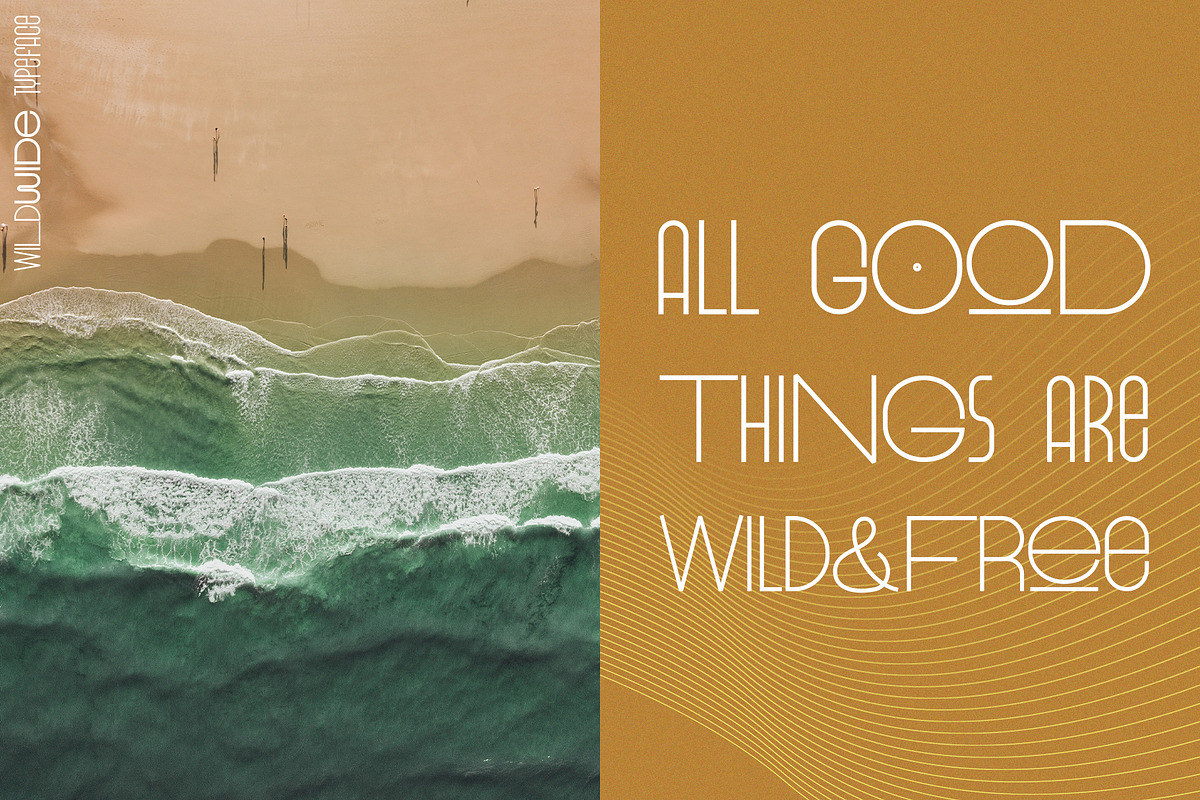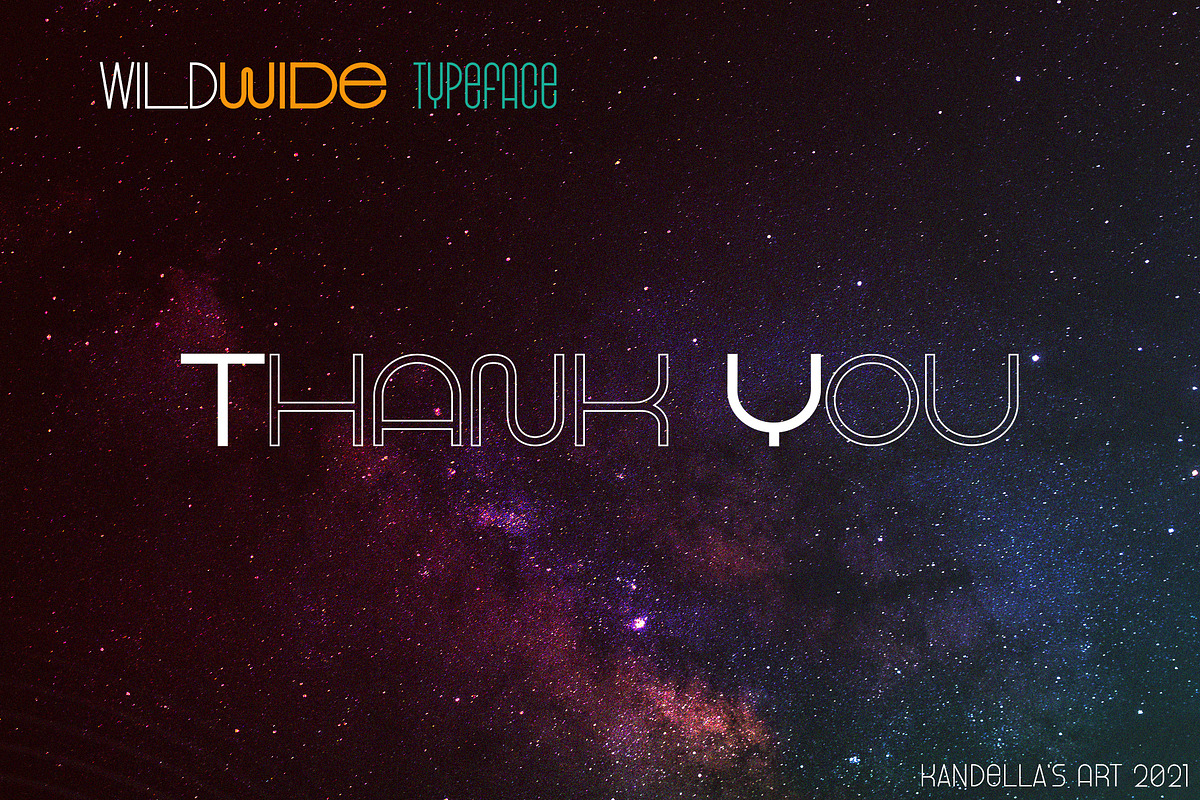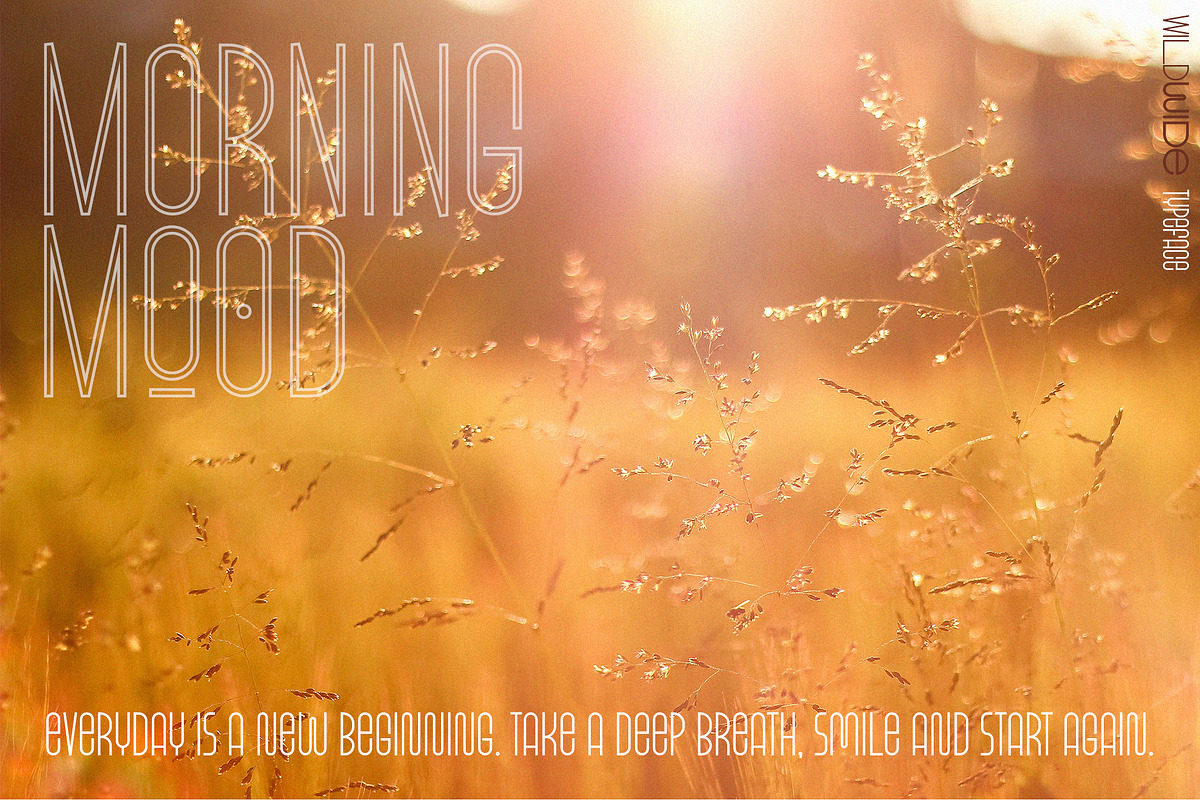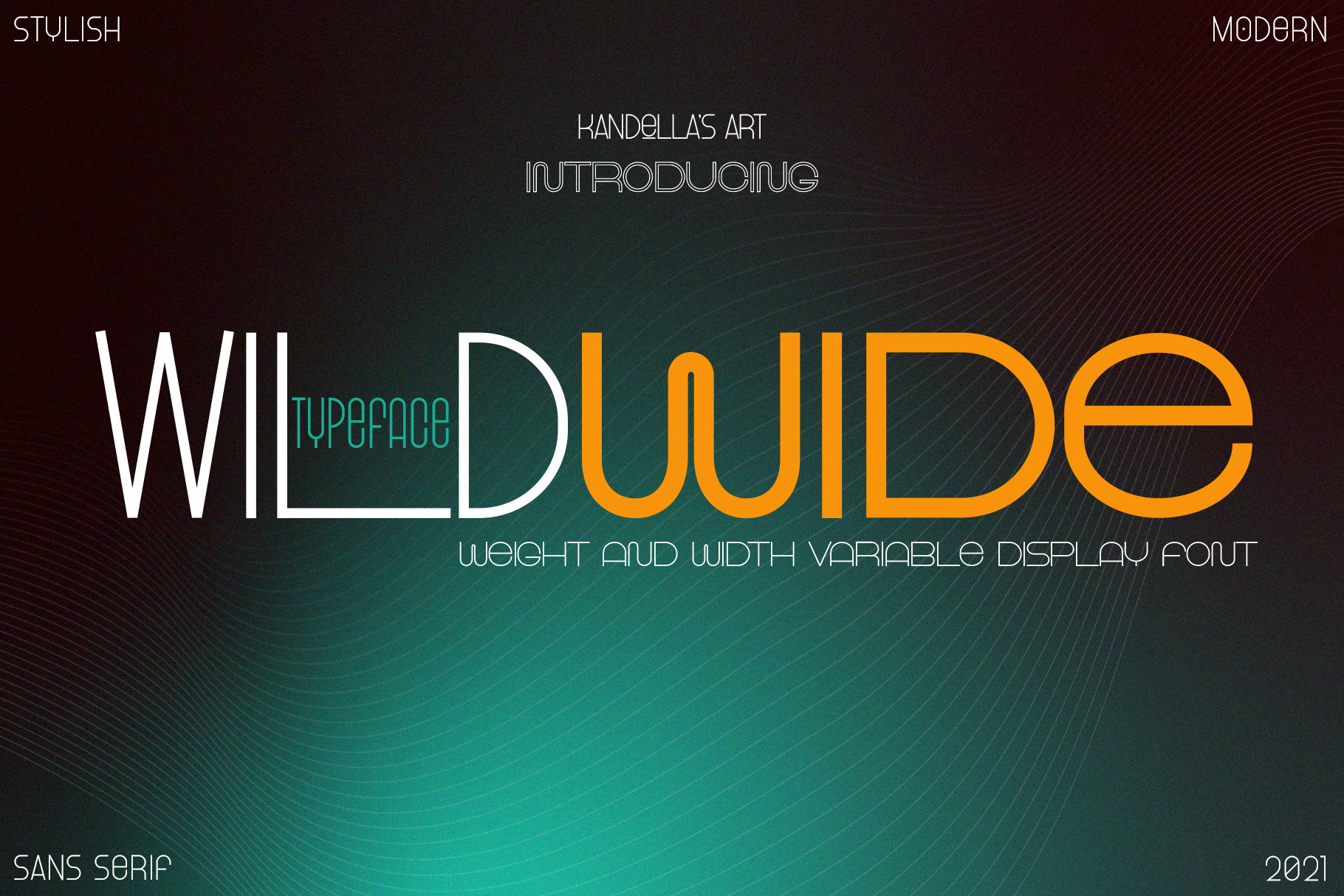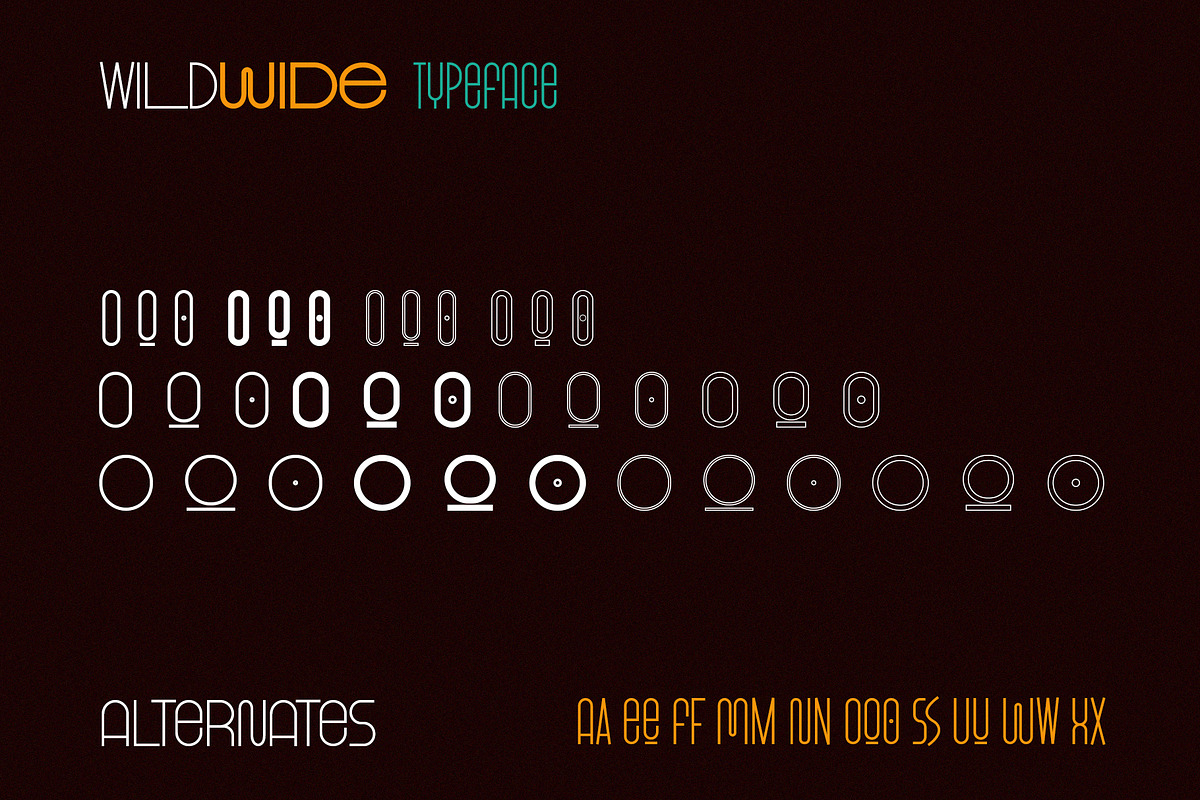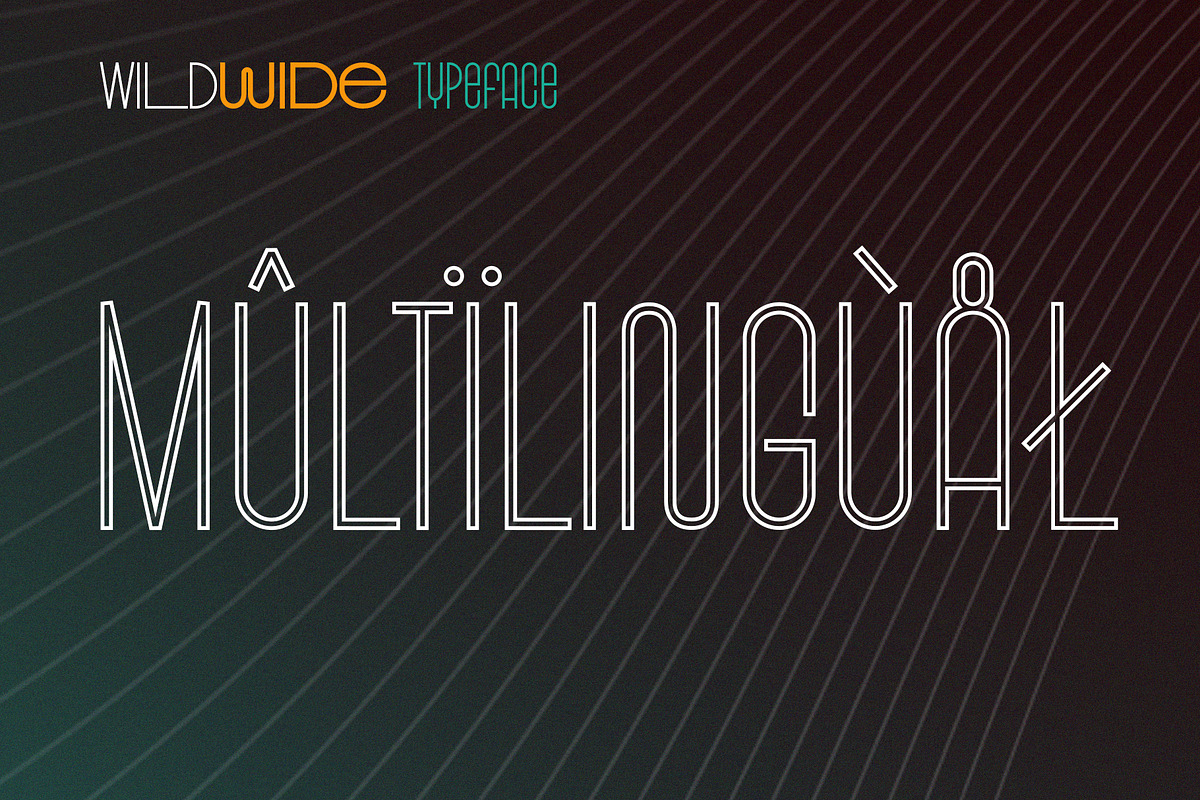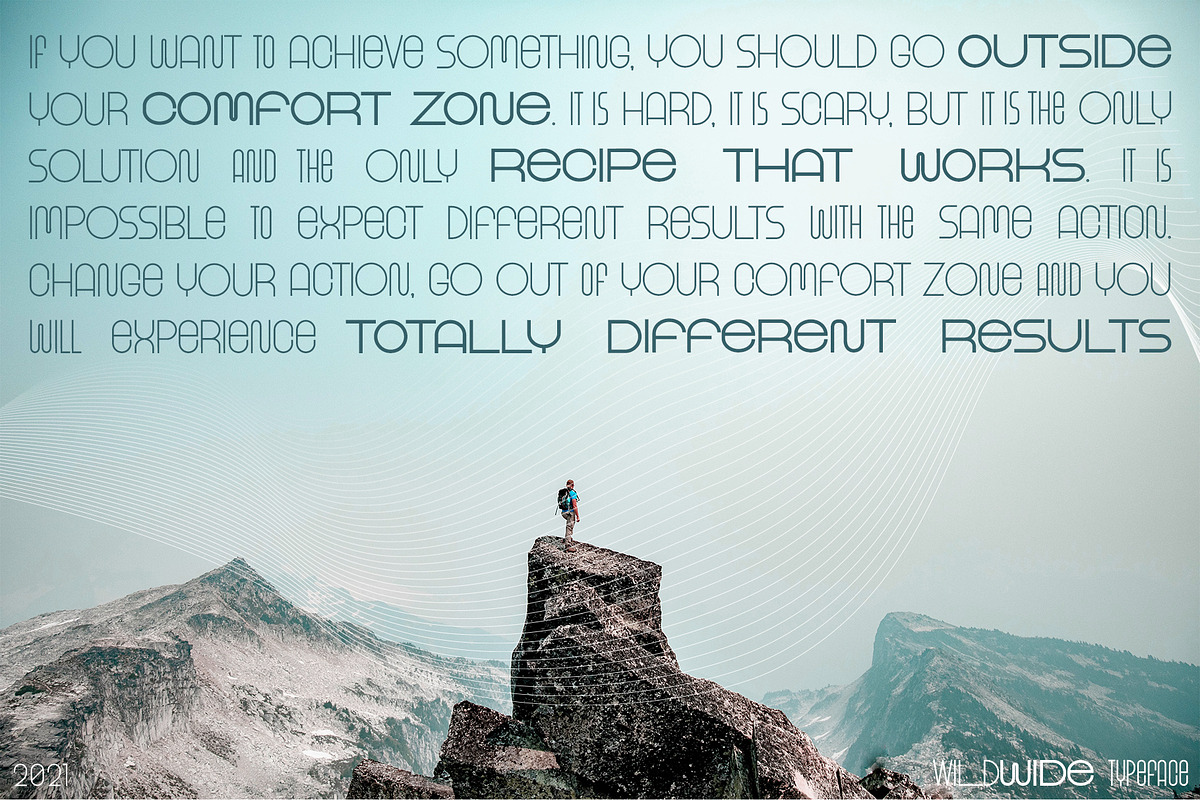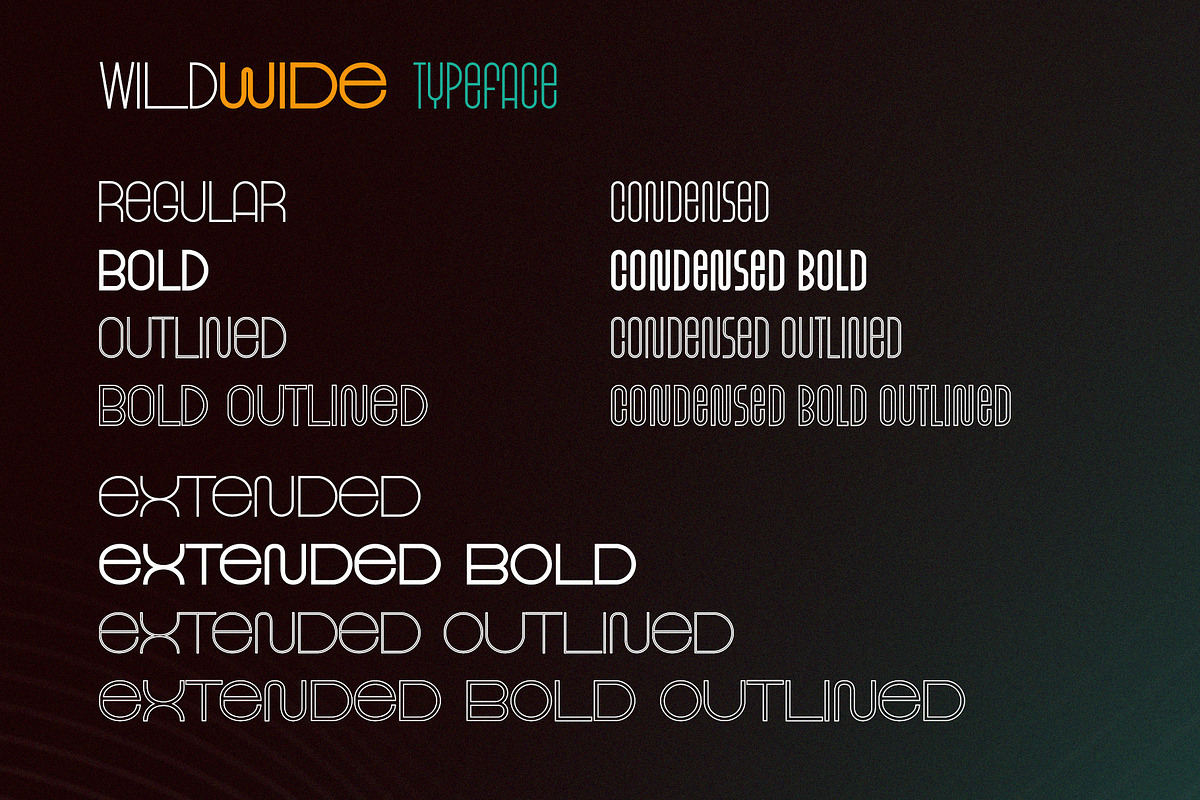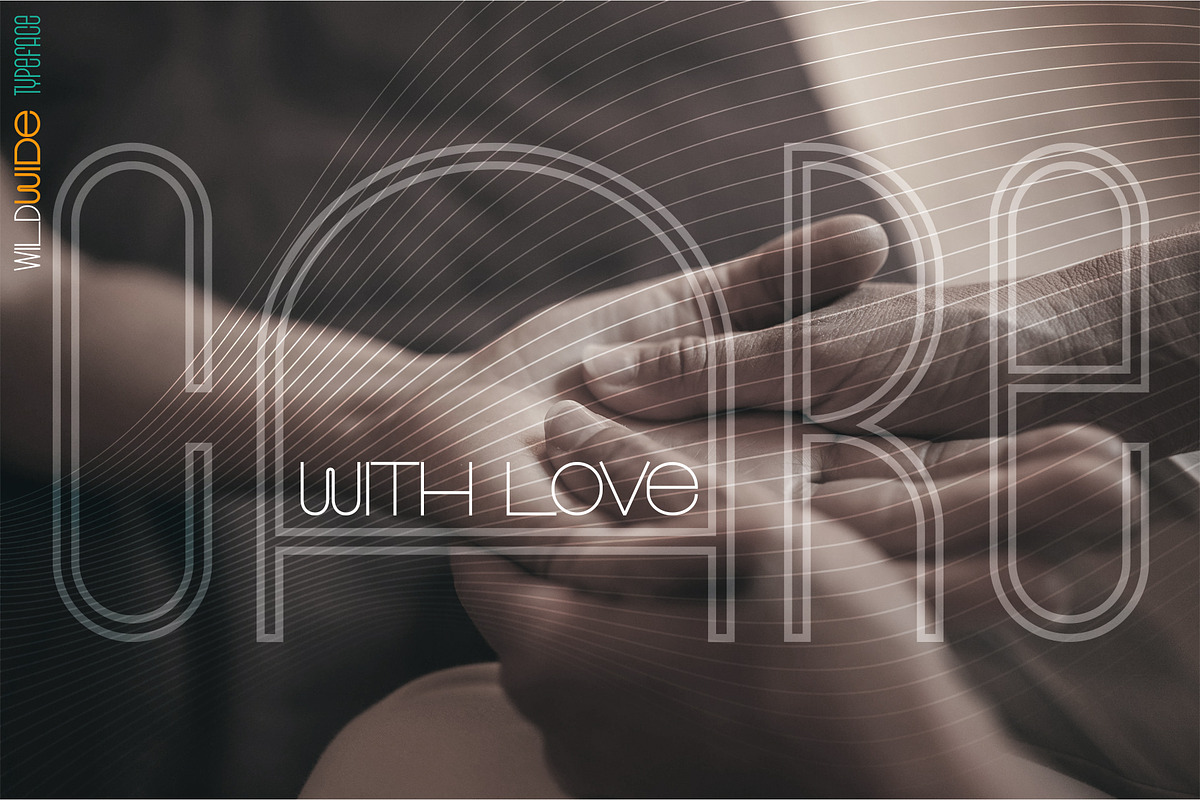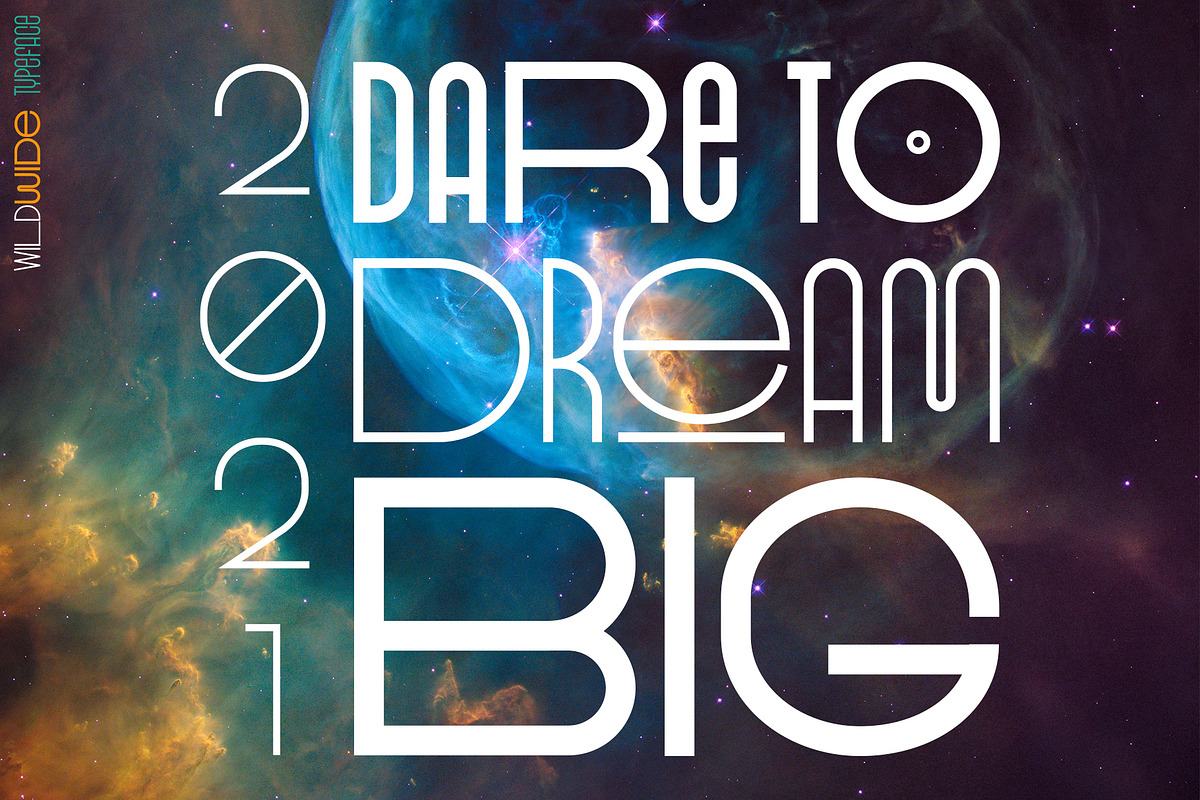
WildWide | Width Variable Typeface
WildWide - weight and width variable sans serif font with uppercase glyphs. This font perfect for all kind of design: social media and visual content, web and UI design, posters and art collage, branding and logos, wedding typography and modern hi-tech design.
Includes 12 fonts: Regular, Bold, Outlined, Bold Outlined, Condensed, Extended, Condensed Bold, Extended Bold, Condensed Outlined, Condensed Bold Outlined, Extended Bold Outlined.
Each Font included:
- Latin Upper Case characters;
- Numbers;
- Punctuation;
- Special symbols;
- Character's alternatives;
- Multilingual Support.